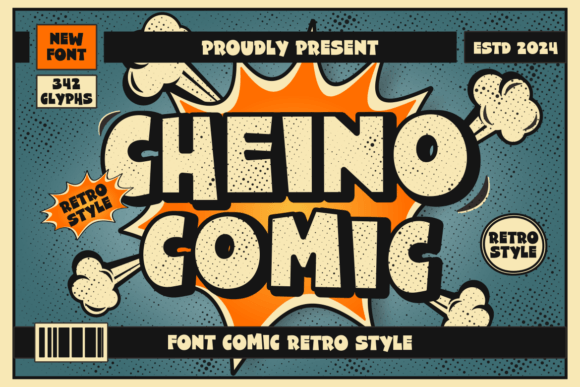
Discover the Joy of Cheino Font
Remember the moment when you were a child, flipping through a comic book, and the colorful illustrations sparked your imagination? The world of comics and cartoons is a treasure trove of creativity, and now, we’re excited to bring that same magic to your designs with our new font, Cheino Font.
This delightful, handwritten font is perfect for designers who want to add a touch of playfulness and fun to their projects. Whether you’re creating poster designs, invitation cards, comics, or promotional materials, Cheino Font is sure to capture the attention of your audience and leave a lasting impression.
With Cheino Font, you’ll have the power to create designs that are both fun and engaging, making it a valuable addition to any designer’s toolkit.
Cheino Font Key Features
- Unique Characteristics: Cheino Font features a unique blend of modern and vintage elements, with intricate details and subtle textures, adding a touch of elegance to any design.
- Font Weight: Offers a range of font weights, from Light to Bold, allowing designers to achieve the desired level of emphasis and visual hierarchy.
Designer Review: Cheino Font
At first glance, I thought Cheino Font was going to be a wild ride. But, after digging deeper, I found that it has some interesting qualities. ✨
Here are some of the things that Cheino Font does well:
- It has a unique and bold character that can make a statement in certain contexts.
- The font’s lines are smooth and well-connected, giving it a modern feel.
- Cheino Font has a wide range of weights and styles, making it versatile for various design applications.
However, there are some limitations that I’d like to mention:
- ⚠️ In some cases, the font’s boldness can feel overwhelming and may not be suitable for all types of content.
- ⚠️ The font’s italic styles can look a bit inconsistent, which may affect the overall readability of the text.
- ⚠️ Cheino Font may not be the best choice for body text, as it can be quite difficult to read at smaller font sizes.
Overall, I think Cheino Font is a solid choice for designers who want to add a touch of personality to their work. While it may not be perfect, it’s definitely worth considering for the right projects. Just remember to use it wisely and balance it out with other fonts to avoid overwhelming the viewer.
Getting the Most Out of Cheino Font
To get the most out of Cheino Font, use it for titles, headings, and body text in your design projects. It’s especially effective for creating a modern and minimalist aesthetic. Experiment with different font sizes and styles to create visual interest and hierarchy in your designs.
Cheino Font is commonly used for:
– Digital marketing materials (e.g. social media posts, email newsletters)
– Print materials (e.g. business cards, brochures)
– Web design and development
Alternatives to Cheino Font
Lato is a modern sans-serif typeface designed by Łukasz Dziedzic. It is a versatile font suitable for various applications, including headings, body text, and titles. Lato is a good alternative to Cheino Font when you need a clean and modern look without the distinctive geometric shapes of Cheino. Lato is more rounded and has a softer feel, making it suitable for long reads and documents.
Montserrat is a sans-serif typeface designed by Julieta Ulanovsky. It is inspired by the urban landscape of Buenos Aires and is known for its geometric shapes and strong x-height. Montserrat is a good alternative to Cheino Font when you need a font with a strong, urban feel. While both fonts share some similarities in their geometric shapes, Montserrat is more condensed and has a more pronounced x-height, making it suitable for headings and titles.
Cheino Font is versatile and can be used for both body text and headings. Its clear typography and legibility make it suitable for body text, while its range of weights and sizes allow it to be used effectively for headings and titles.